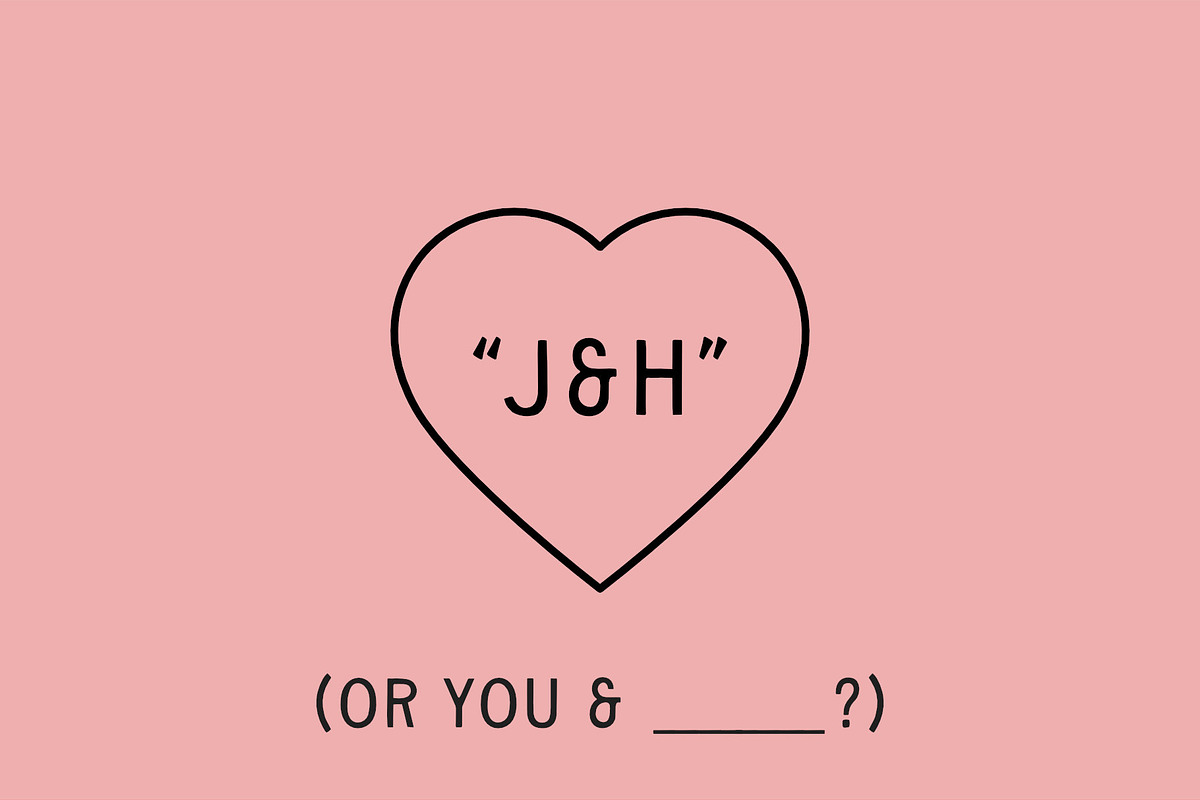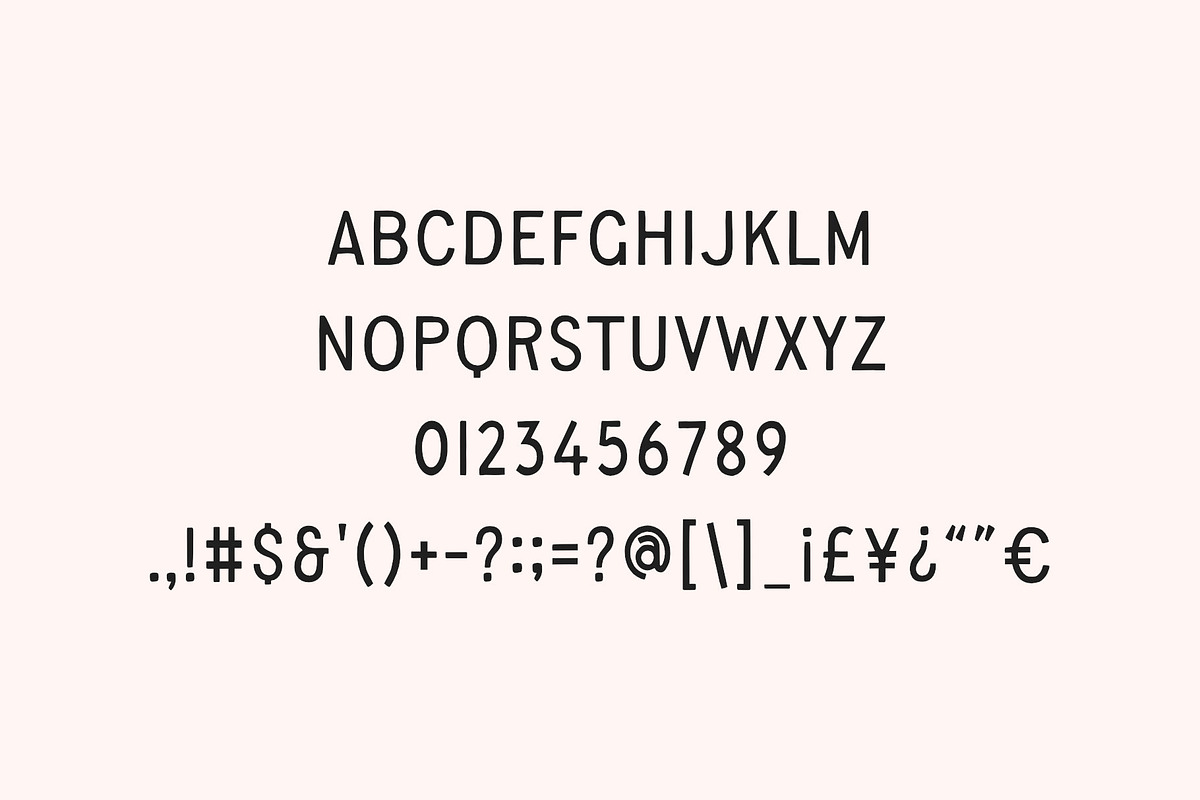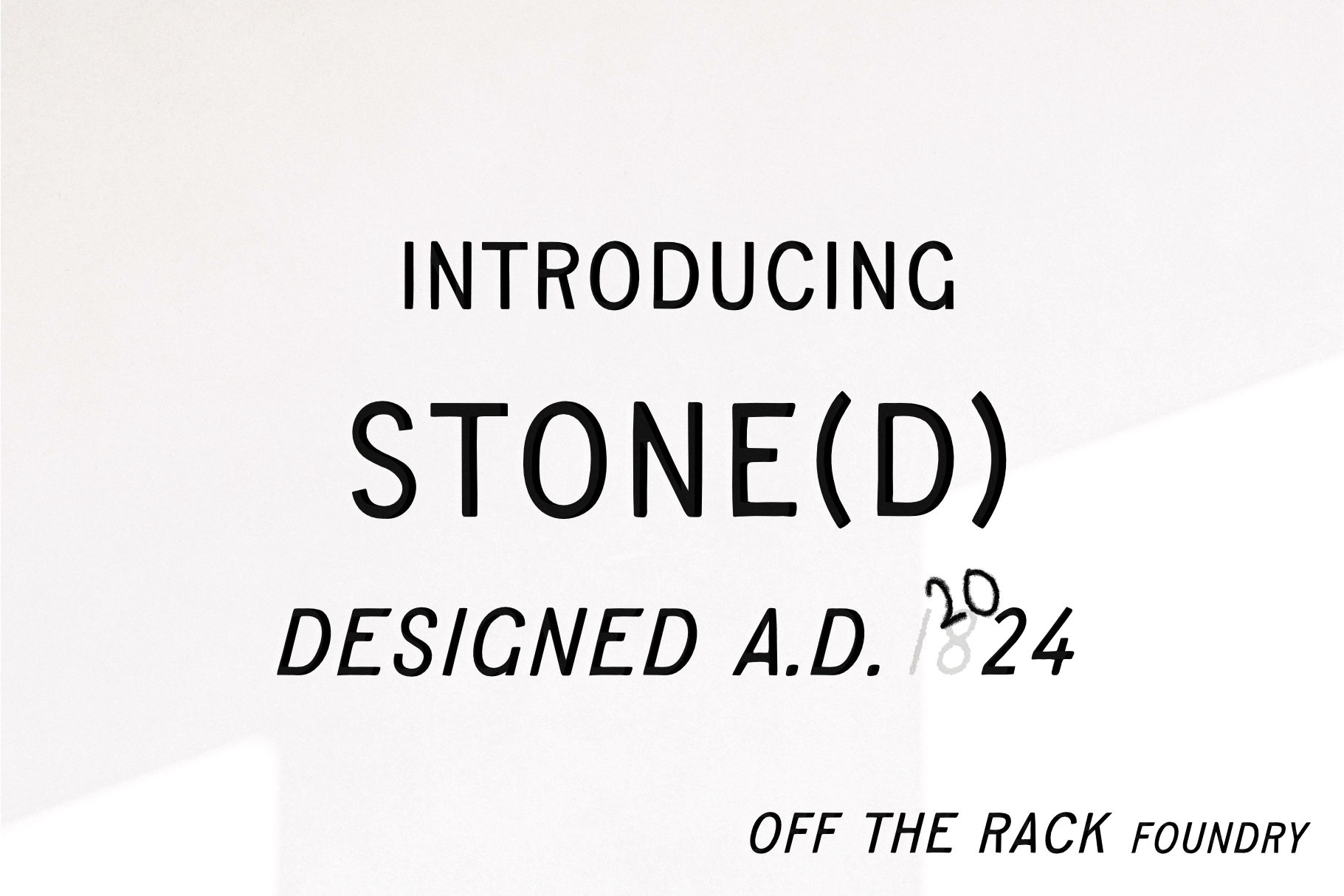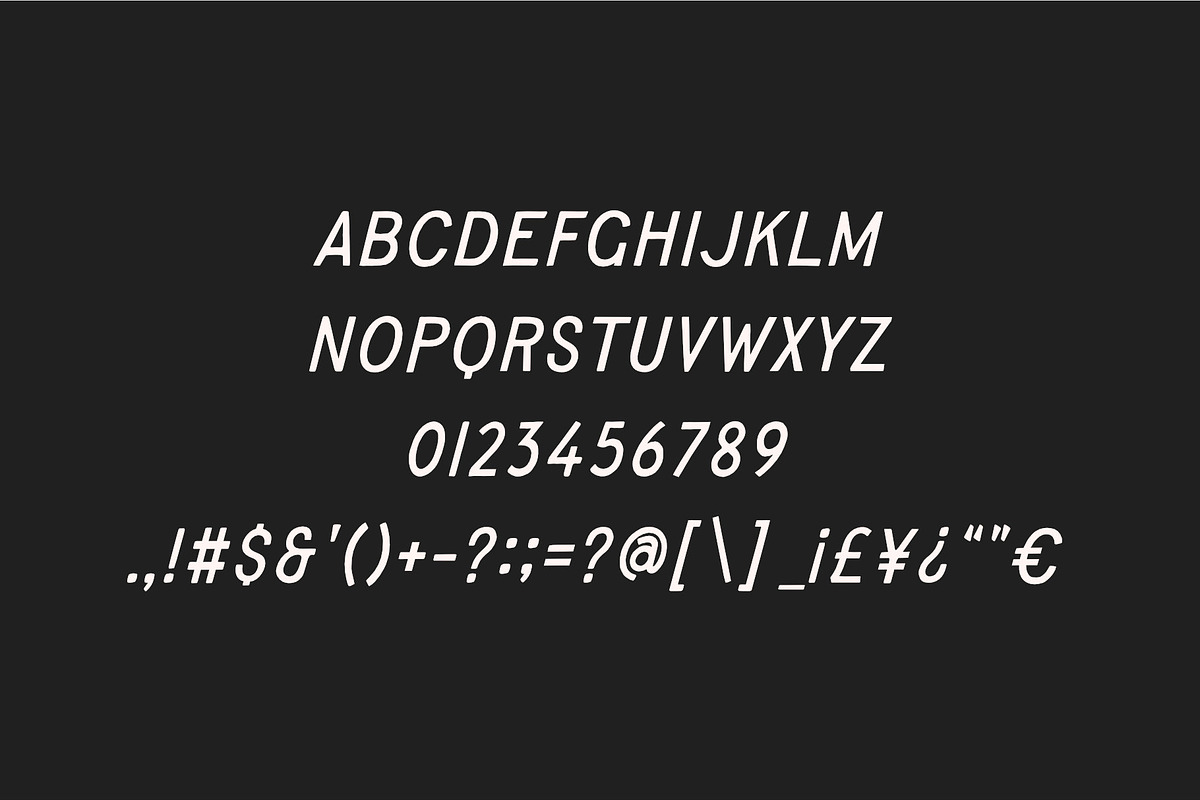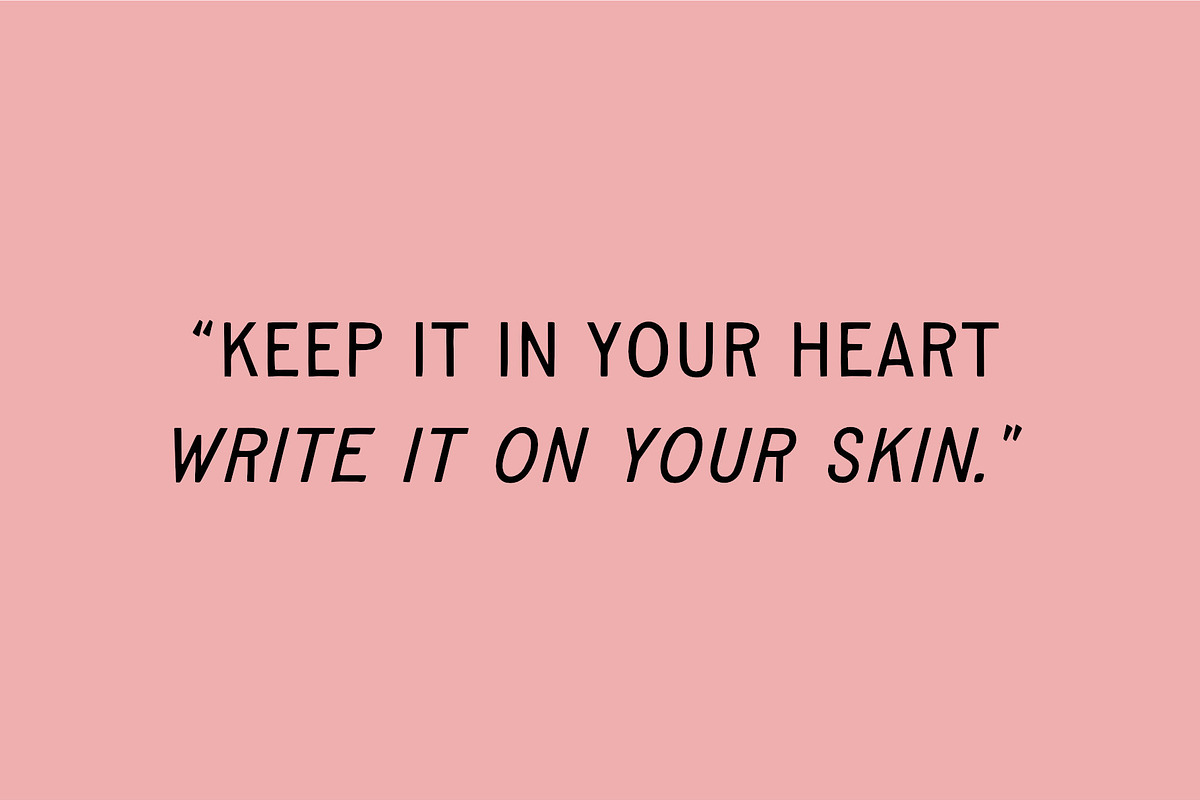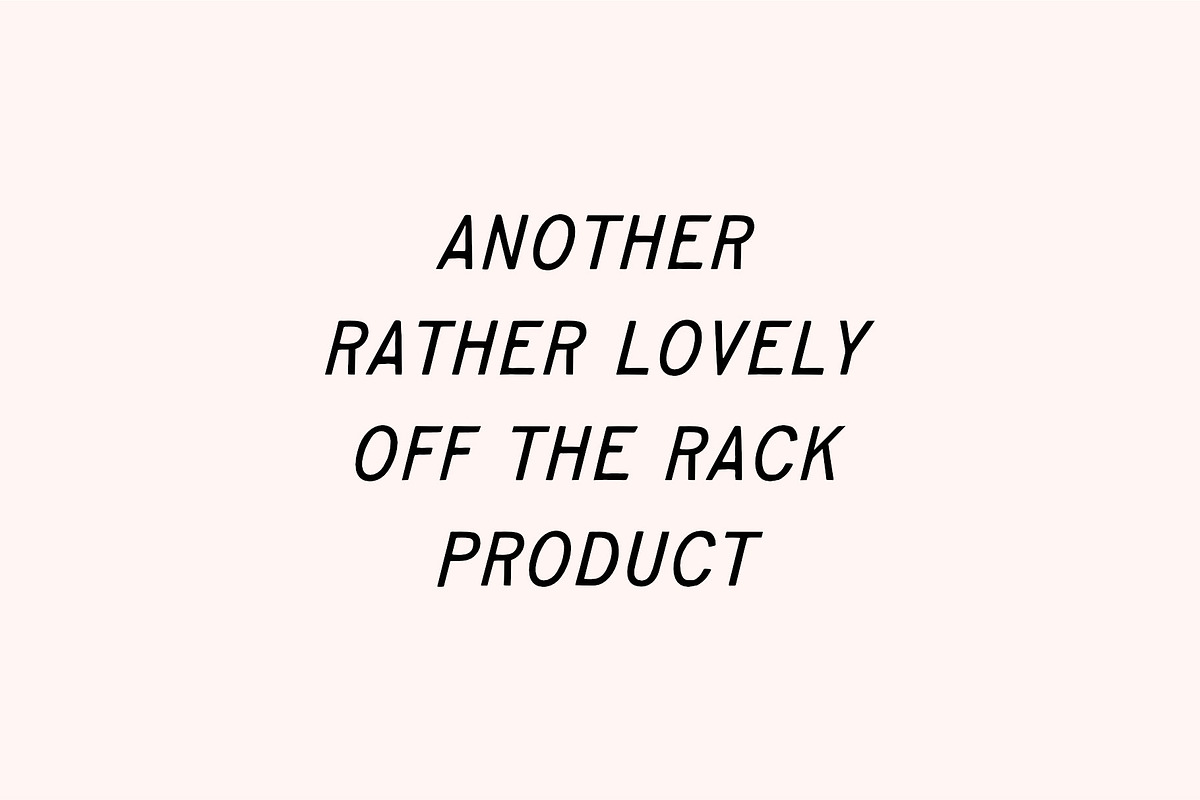
Stone(d) | Hand Drawn Font
Inspired (stolen) from a cornerstone that caught my eye, as I wandered past on my way to a once-trendy cafe. Useful for far more things than inscribed ceremonial stones, I'm sure this will become at least your 3rd most used font.
Contains uppercase, digits and limited punctuation, in regular and italic weights.